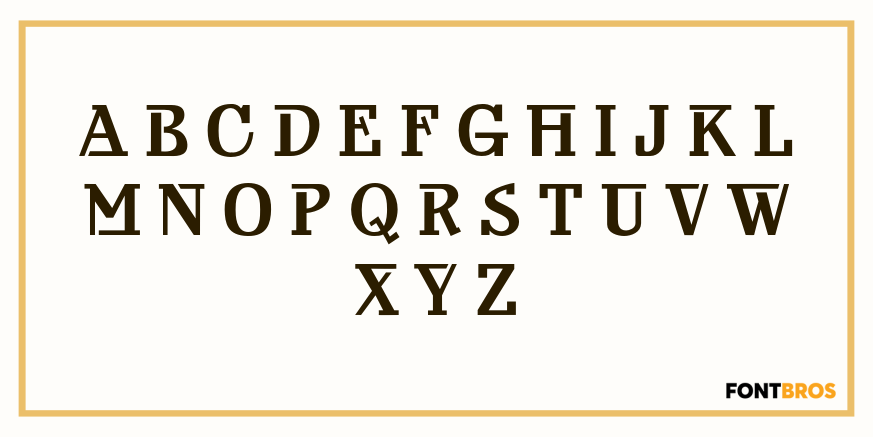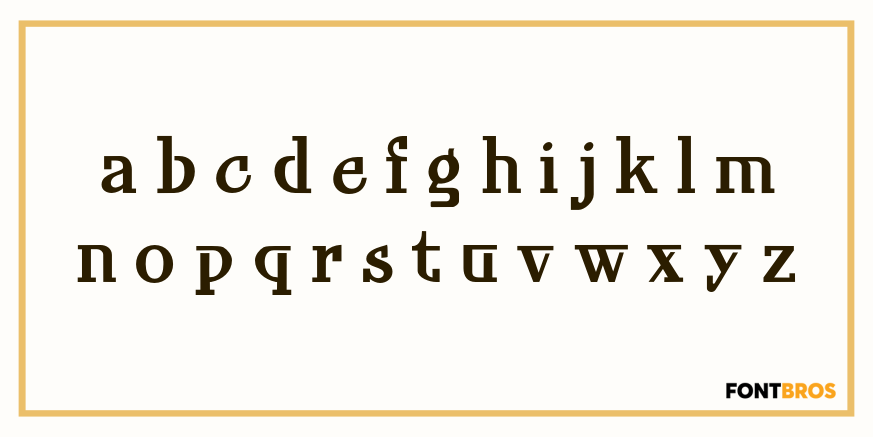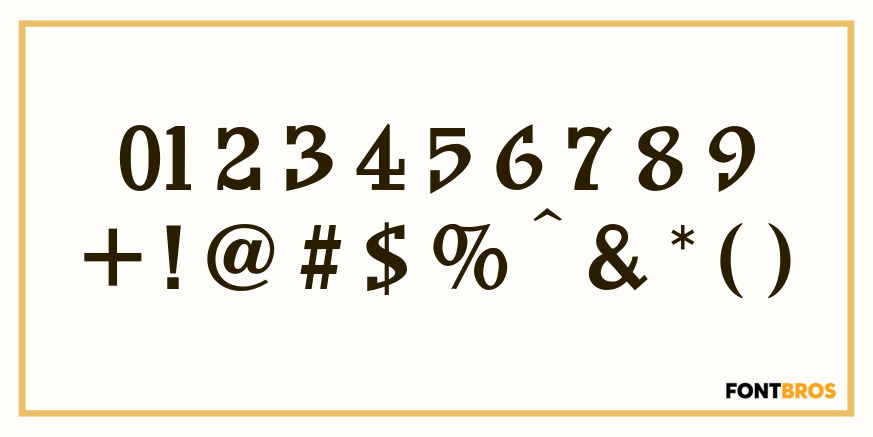
Dutch Treat
Authentic rendering of the original font called Vanden Houten from the Keystone Foundry in Phaladelphia. Very popular among job printers of the early twentieth century.